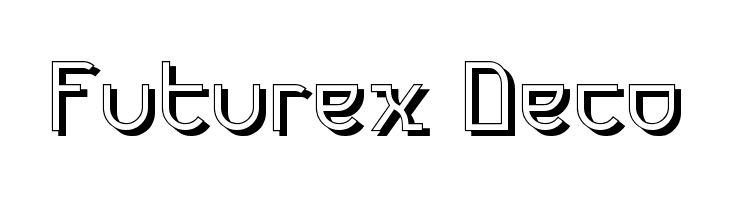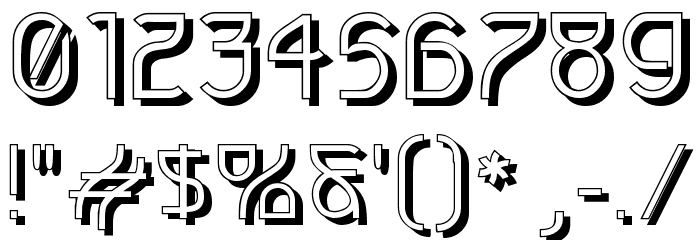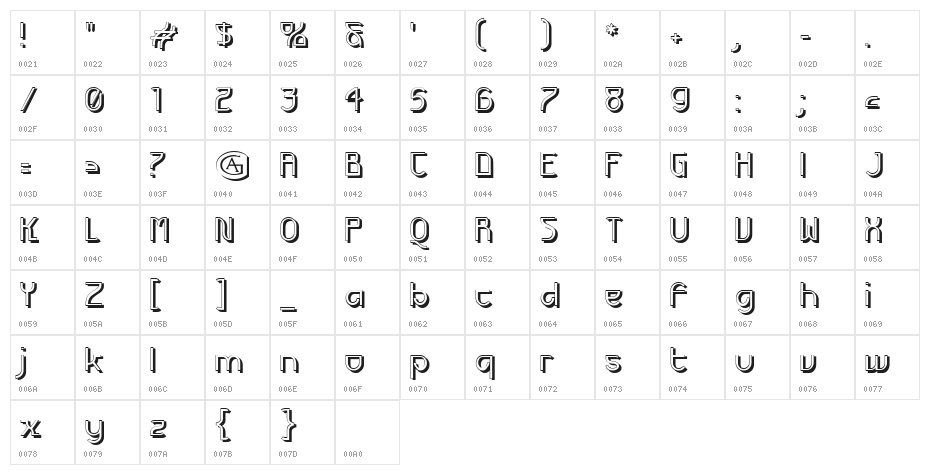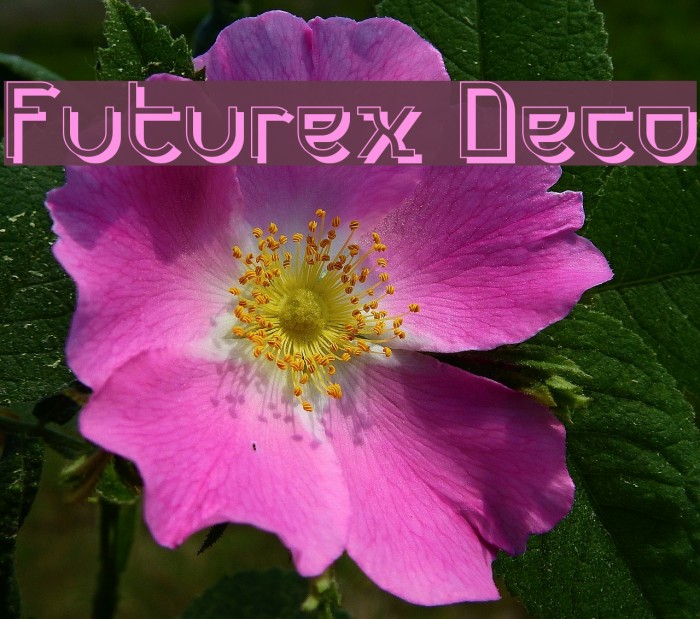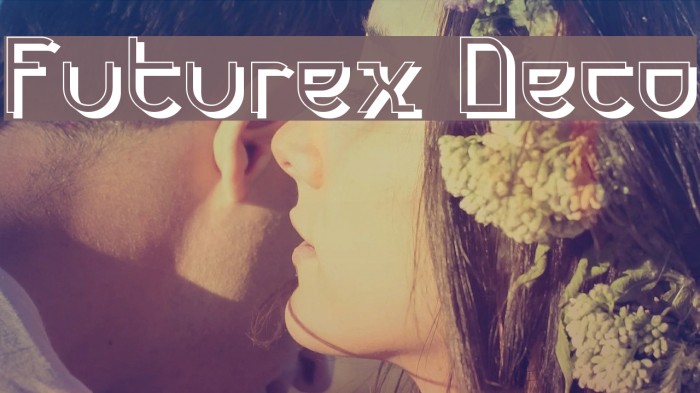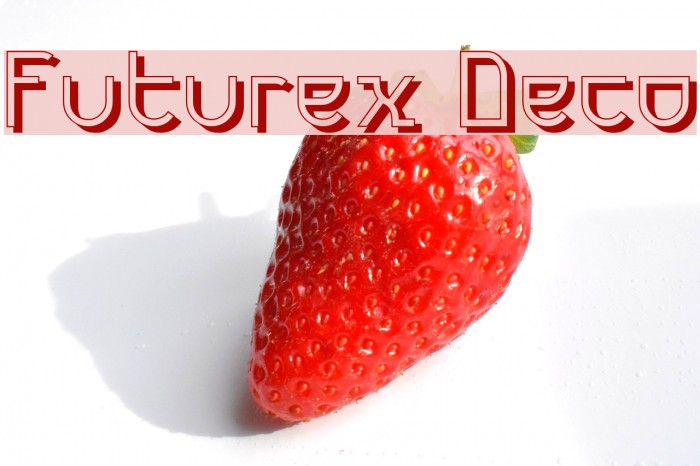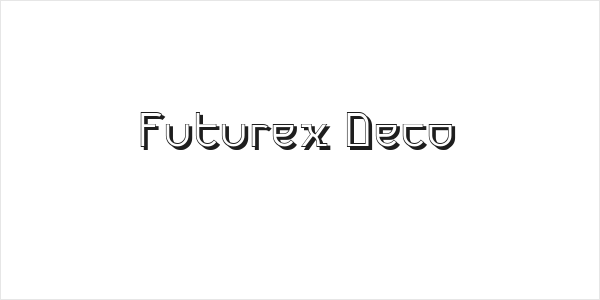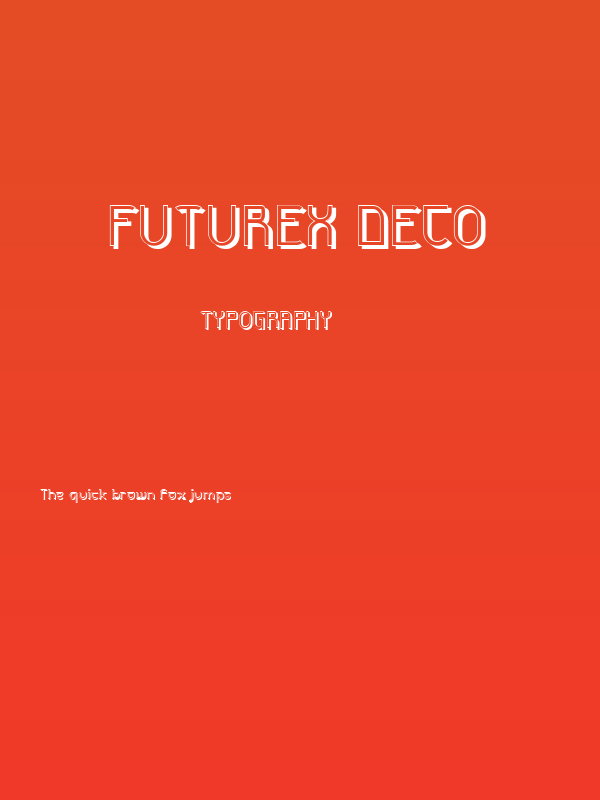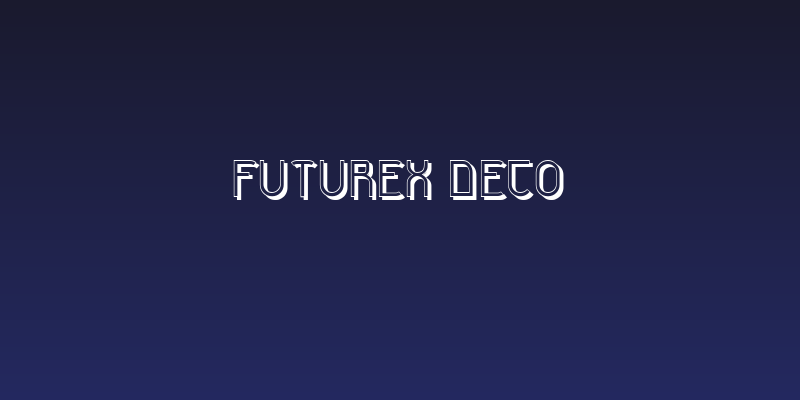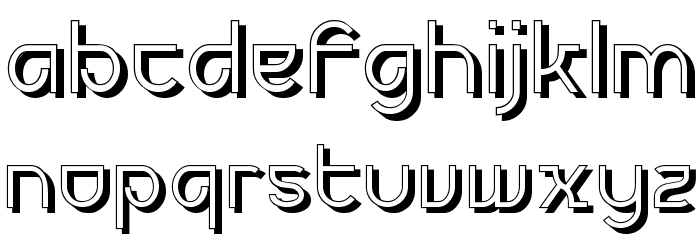
Futurex Deco Font
Futurex Deco Description
This font features a unique blend of geometric and futuristic elements, characterized by its bold, angular lines and distinct cut-out shapes. The uppercase letters exhibit a strong architectural influence, with sharp edges and a three-dimensional effect that gives them a striking appearance. The lowercase letters maintain the same geometric style, providing a cohesive look across the typeface. Numbers and special characters are designed with the same attention to detail, ensuring consistency throughout. This font's modern aesthetic makes it ideal for projects that require a contemporary and eye-catching design.
| Proposed Projects | Ideal for branding, posters, album covers, and any design needing a modern, standout typeface. |